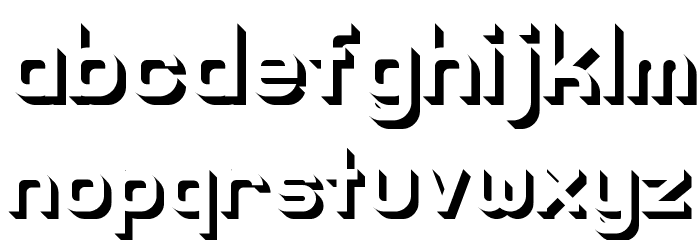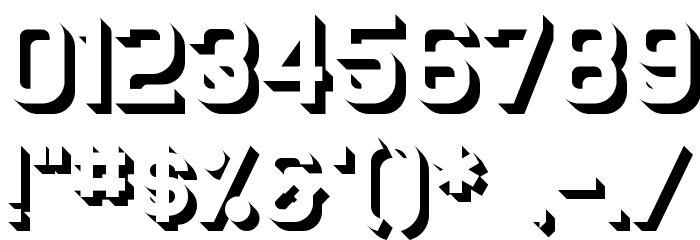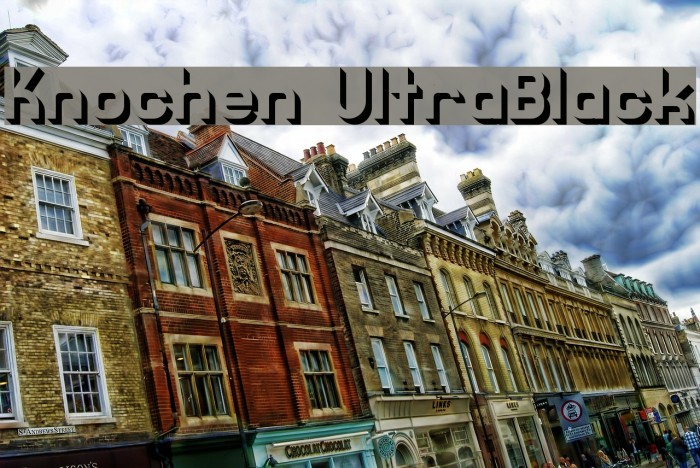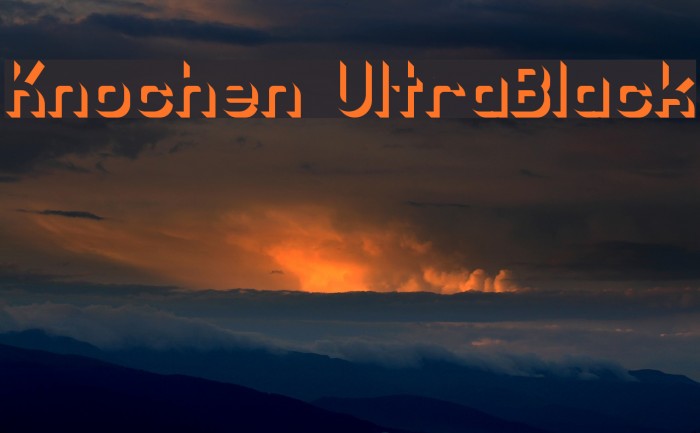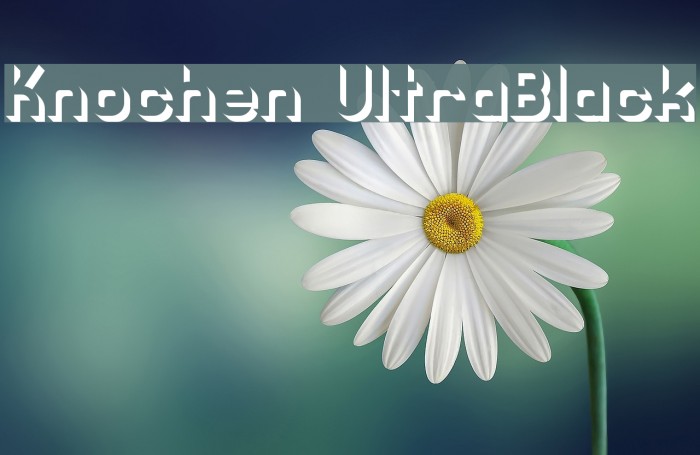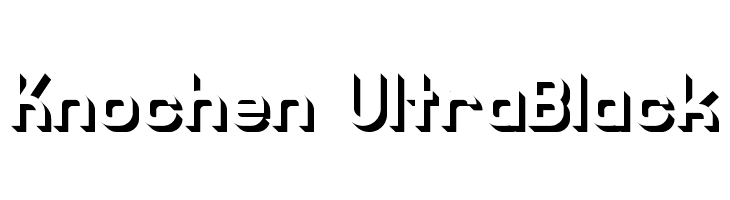
Knochen UltraBlack Font
This font features a bold, ultra-black style with a distinct shadow effect that gives it a three-dimensional appearance. The characters are blocky and geometric, with sharp angles and clean lines. The uppercase and lowercase letters maintain a consistent weight, contributing to a cohesive and impactful look. The numerals and special characters are designed to match the boldness of the alphabet, ensuring uniformity across all glyphs. This font's unique shadowing and solid structure make it stand out, ideal for projects that require a strong visual presence.
A bold, ultra-black font with a three-dimensional shadow effect.